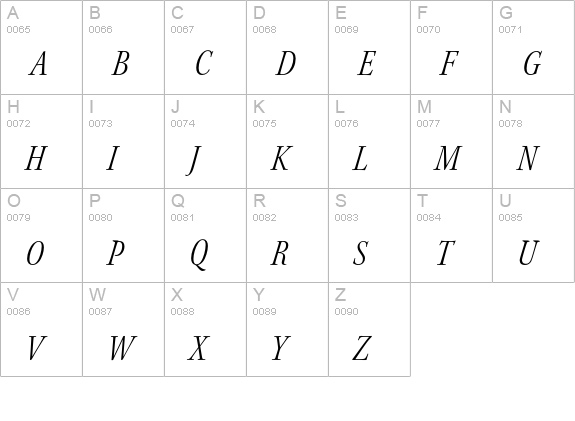
Kepler Std Light Condensed Italic Subhead is a refined, elegant, condensed-width, italic variant in the Kepler typeface family \xE2\x80\x94 well suited to elegant body text, refined sub-headings, and luxury branding.
Kepler Std Light Condensed Italic Subhead font is a sleek and stylish typeface that perfectly balances elegance and readability. Its condensed design makes it ideal for subheadings and titles, allowing for clear and concise communication in any project. With its light weight and italicized slant, Kepler Std Light Condensed Italic Subhead font adds a touch of sophistication and modernity to any design. The subtle curves and refined letterforms create a harmonious flow, ensuring that your message is conveyed with grace and professionalism. What sets this font apart is that it is available for free download at FontsMarket.com. This means that you can easily access and incorporate this remarkable typeface into your projects without any additional cost. Whether you are designing a poster, creating a website, or crafting a brochure, Kepler Std Light Condensed Italic Subhead font will elevate your visuals and captivate your audience. Don't miss out on the opportunity to enhance your designs with this versatile and visually appealing font. Download Kepler Std Light Condensed Italic Subhead font for free at FontsMarket.com and unlock a world of creative possibilities.